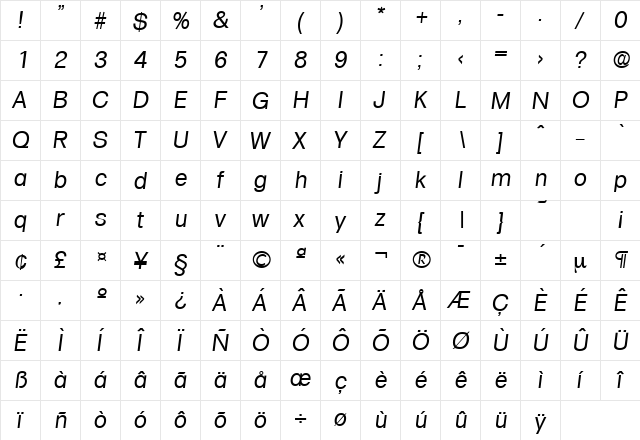
Formula-Serial RegularItalic
Design Context for Formula-Serial Typeface
Formula-Serial takes a measured approach to typography — its balanced proportions and neutral character make it a reliable workhorse for both digital and print work. The slanted form adds forward momentum and visual energy.